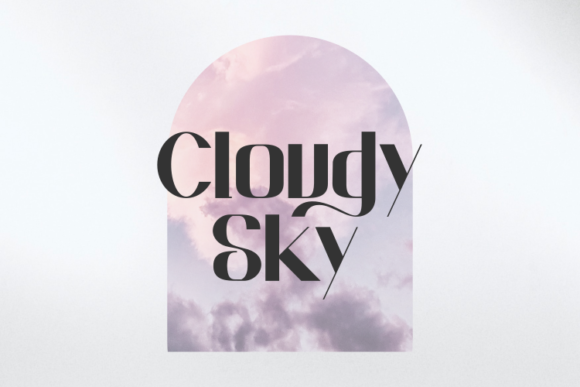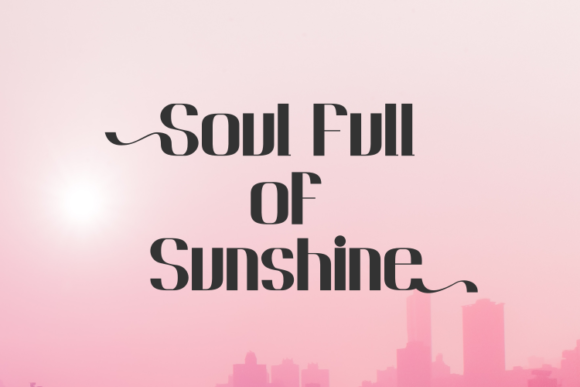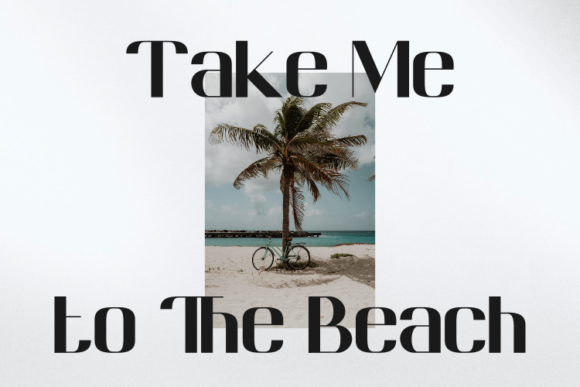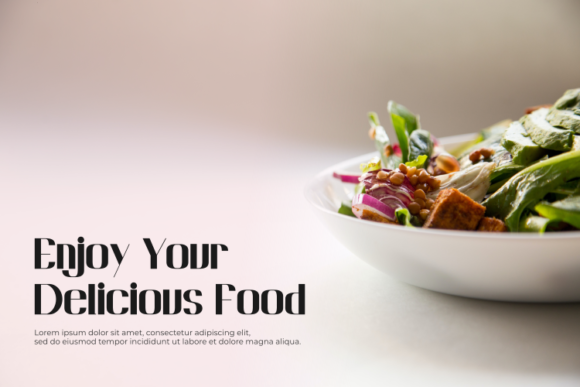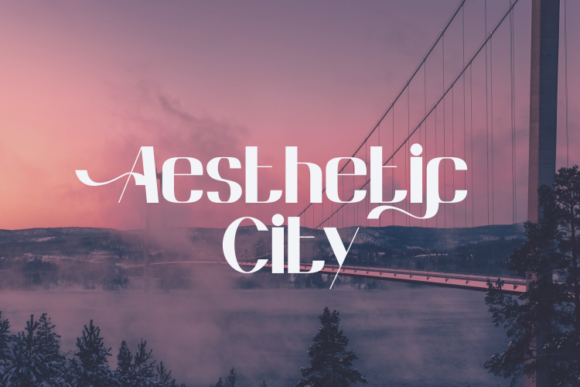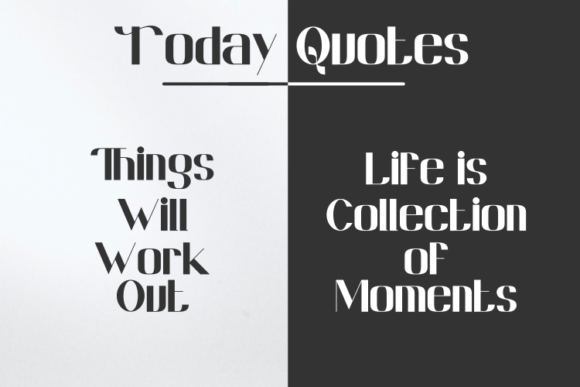
Introduction to Rocqora Font
Rocqora is a modern, bold and cool serif font.
This font is PUA encoded which means you can access all of the glyphs and swashes with ease Fall in love with its incredibly versatile style and use it to create spectacular designs.
Key Features of Rocqora Font